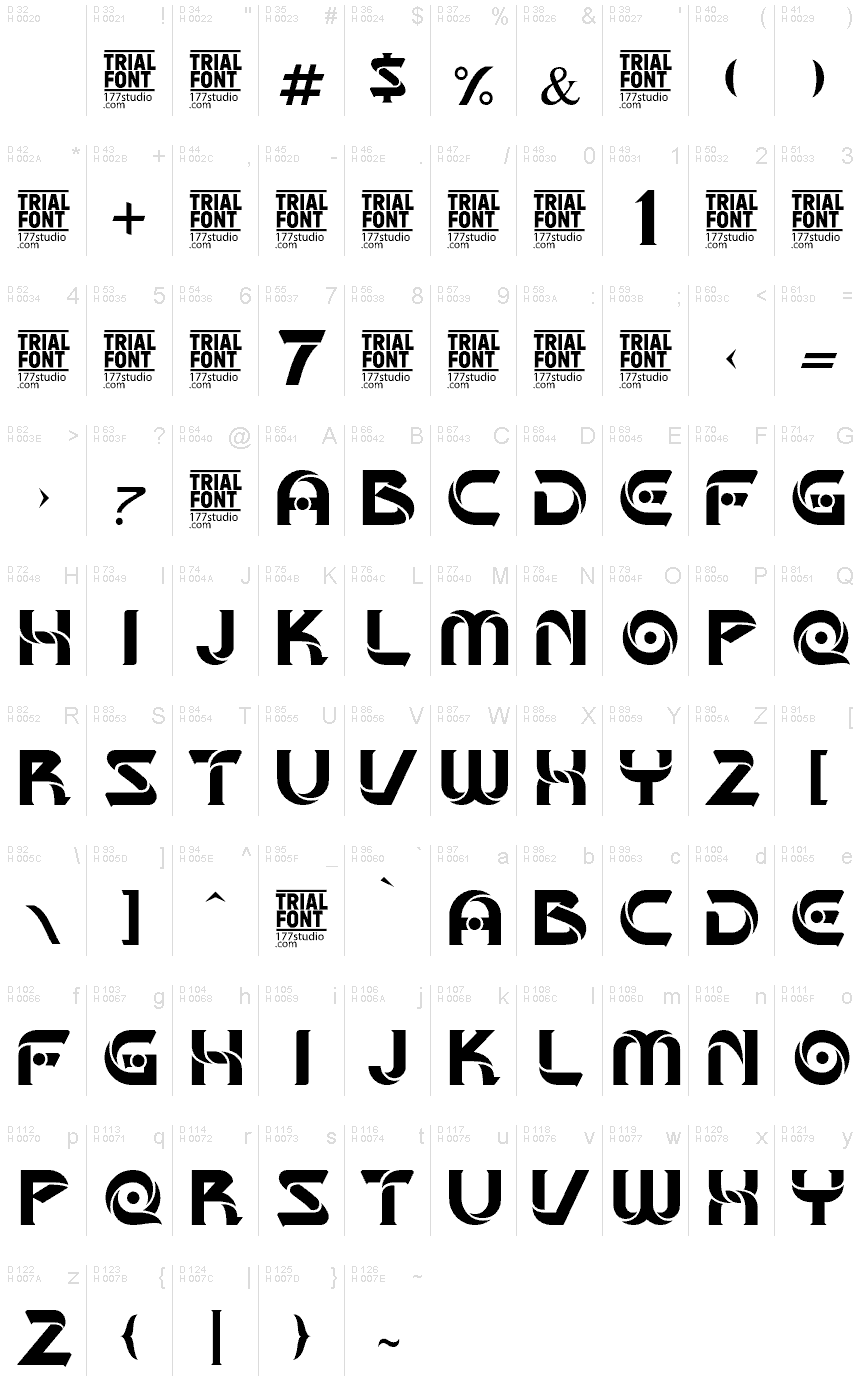
Created Attached, a brand new font from 177Studio, is a techno display font of sharp lines and simple shapes with a rough feel.
The dashing lines and heavy outlines of each letter present an urban mood with minimal distractions. Created Attached carries a retro atmosphere of vibrant club life and neon signs. Take this free techno font for a test drive and use it in poster design, concert flyers, event invitations, and book titles with its dashing lines and bold presence. It’s ideal for graphic designers looking to get ahead in the music and arts world.